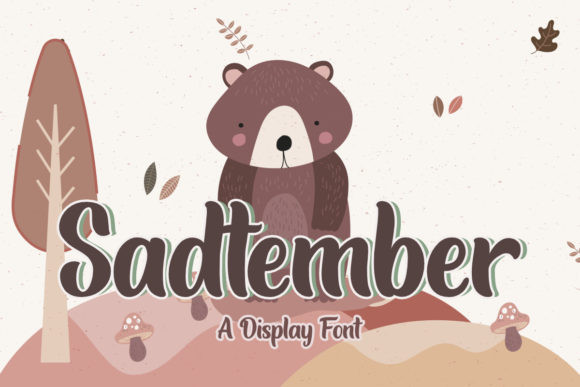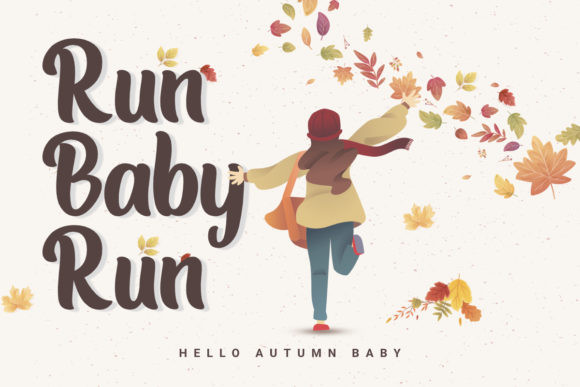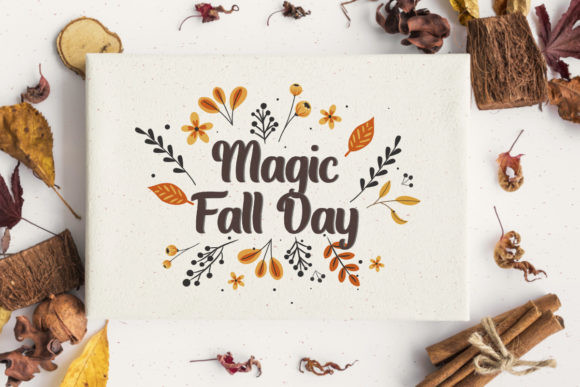
Sadtember Font
Sadtember is a bold display font. It features a sweet style and it’s perfect for logos, packaging, emblem, t-shirt, branding, and other creative project!